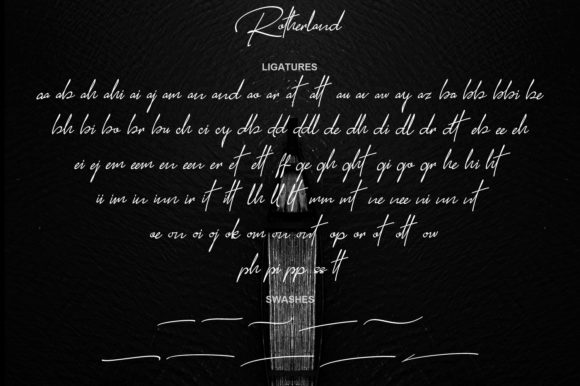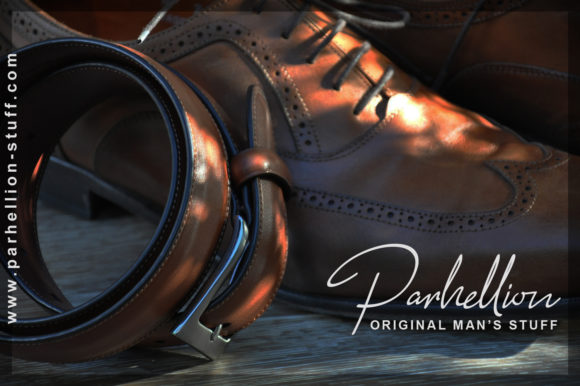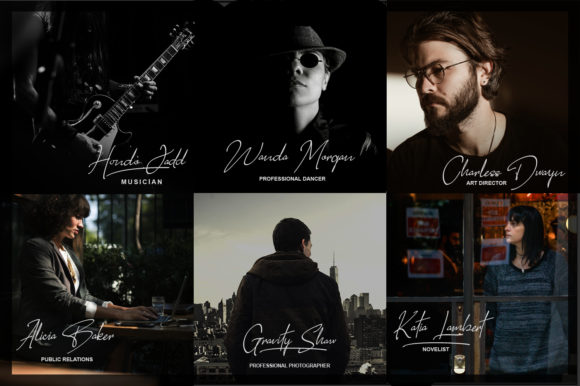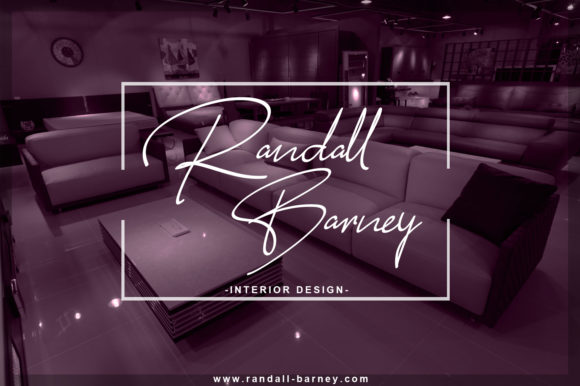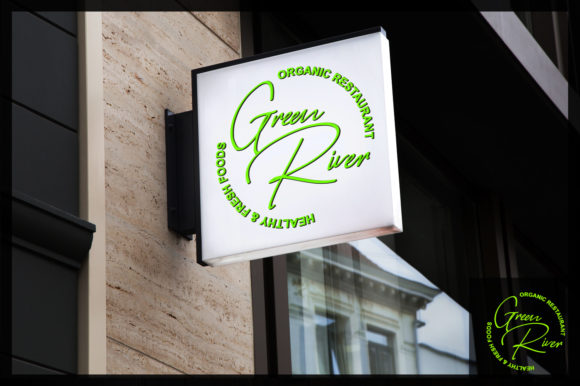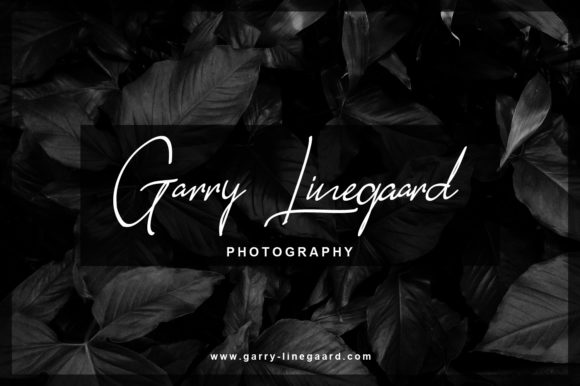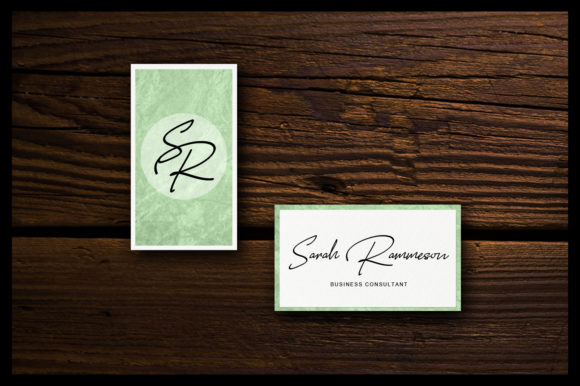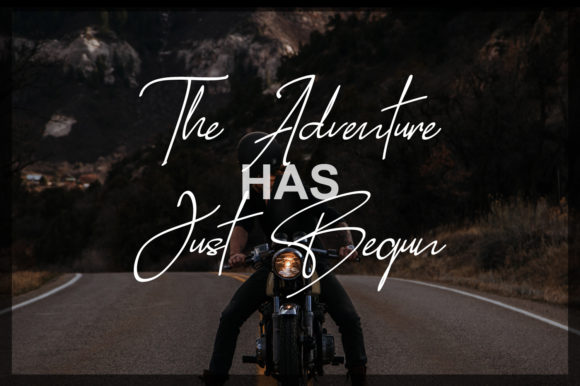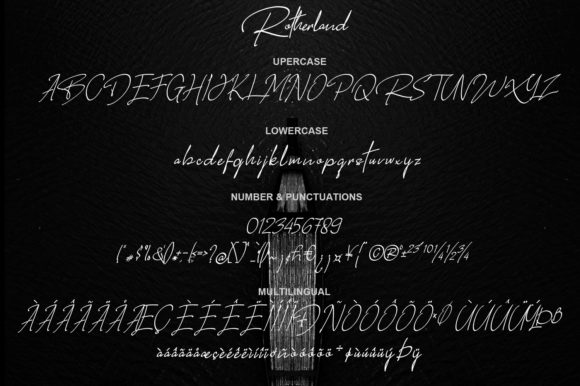
Rotherland Font
About Rotherland Font
The Rotherland is a handwritten luxury signature script with a natural and clean flow on each line.
Its included ligatures and simple swashes makes it suitable for any project!